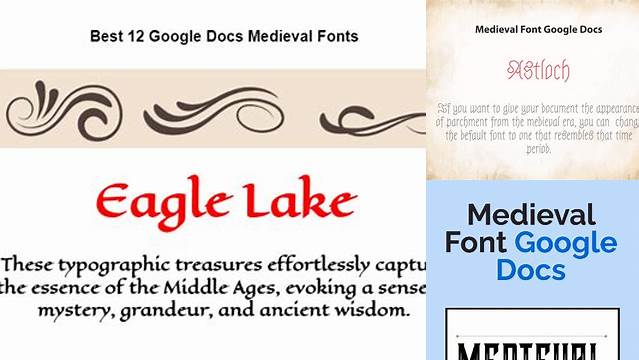
Unlock Medieval Fonts In Google Docs
Hey guys, ever found yourselves dreaming of giving your Google Docs that epic, old-world vibe? Maybe you're writing a fantasy novel, crafting a D&D campaign, or just want to add a touch of historical flair to your documents. Well, you're in luck! Getting medieval fonts in Google Docs might seem a bit tricky at first, since Google Docs doesn't have a direct "upload custom font" button like some desktop apps. But fear not, adventurers! We're here to guide you through the mystical forest of typography to unearth those perfect medieval scripts. We'll explore how to access, use, and even creatively integrate fonts that scream 'knight in shining armor' or 'ancient parchment.' So, buckle up, because we're about to transform your plain old docs into something truly legendary. Let's dive in and unlock the secrets of medieval typography for your Google Docs projects!
Diving Deep into Medieval Fonts for Google Docs
When we talk about medieval fonts for Google Docs, we're not just talking about one style; it's a whole kingdom of possibilities! From the sturdy, imposing Blackletter scripts often associated with old German texts, to the more elegant, flowing uncials and half-uncials that graced ancient manuscripts, medieval typography is incredibly diverse. Guys, understanding this variety is the first step to choosing the perfect font for your project. Are you aiming for something that looks like it came straight from a monastic scriptorium? Or perhaps a more rugged, hand-drawn feel that evokes an ancient map? Each style carries its own historical weight and aesthetic, and picking the right one can dramatically enhance your document's atmosphere. For instance, a heavy Blackletter might be perfect for a dramatic title, while a lighter, more legible gothic script could work for body text in a fantasy saga. The challenge with medieval fonts for Google Docs is often finding high-quality, free, and accessible versions that play nicely with Google's ecosystem. Many fantastic historical fonts exist, but not all are readily available within Google Fonts, which is Google Docs' primary font library. This means we sometimes have to get a little creative and think outside the box to bring those ancient vibes to life. We'll explore various methods, from utilizing existing Google Fonts that have a medieval feel to exploring add-ons and clever workarounds. The goal is to equip you with the knowledge to make your documents look like they’ve traveled through time, without needing to become a typography wizard yourself. It’s all about making your creative visions a reality, easily and effectively, right within your favorite cloud-based word processor.
The Quest for Authentic Medieval Google Docs Fonts
The quest for authentic medieval Google Docs fonts is a noble one, and it often begins by exploring Google's own extensive font library. While Google Fonts might not have categories explicitly named "Medieval" or "Gothic," they do offer a surprising number of typefaces that capture the essence of various historical periods. Guys, you'd be amazed at what you can find if you know what to look for! Think about fonts with strong serifs, dramatic flourishes, or a hand-drawn, almost calligraphic quality. Some great starting points include Old English Text MT (though not directly in Google Fonts, similar styles are), UnifrakturMaguntia, or Special Elite for a more typewriter-esque, historical feel. These aren't always 100% historically accurate Blackletter or Uncial scripts, but they certainly evoke that medieval era. The key is to experiment. Open up a blank Google Doc, head over to the font selector, and start browsing. Look for categories like "Display" or "Handwriting" as they often contain unique styles that lean towards the ornate or historical. Sometimes, a font that wasn't designed with the medieval period in mind can, with the right formatting (like bolding or increased letter spacing), perfectly capture the mood. Don't limit yourselves to just exact replicas; sometimes a stylistic echo is even more effective for readability and overall aesthetic. Remember, the goal is to transport your reader, and often, a well-chosen, readable font with a medieval flavor is better than an overly ornate, hard-to-read historical script. This quest is all about balancing authenticity with practicality, ensuring your readers can actually enjoy the content you’ve worked so hard on. Keep an eye out for unique character sets and ligatures, as these can add an extra layer of historical charm to your text, making it feel truly special and carefully crafted. It's a fun journey of discovery, honestly!
Exploring the Best Gothic Fonts for Google Docs
When people mention Gothic fonts for Google Docs, they're often referring to the Blackletter style, which is arguably the most recognizable "medieval" script. These fonts are characterized by their dense, angular, and often ornate letterforms, reminiscent of old German bibles or medieval proclamations. Guys, they really pack a punch visually! While direct Blackletter options within Google Fonts are limited, some excellent alternatives and creative approaches can help you achieve that desired aesthetic. Look for fonts like UnifrakturMaguntia, which offers a very close approximation of the Fraktur style of Blackletter. It has that distinctive, dramatic flair that instantly transports your reader to the Middle Ages. Another good strategy is to search for fonts with strong, heavy strokes and sharp angles, even if they aren't explicitly labeled "Gothic." Sometimes, display fonts with a hand-drawn or slightly distressed look can also evoke a similar ancient, historical vibe. The key with Gothic fonts for Google Docs is to use them wisely. Because of their intricate nature, they can be challenging to read in large blocks of text. They are best reserved for titles, headings, chapter beginnings, or short, impactful quotes. Imagine using a beautiful Blackletter for the title of your fantasy map or the opening line of a decree – it instantly elevates the document's presentation. Experiment with font size and line spacing to maximize readability while maintaining the dramatic effect. You can also pair a bold Gothic heading with a more legible, traditional serif font for the body text to create a striking contrast. This combination ensures your document is both visually stunning and user-friendly. Don't be afraid to play around with different Google Font options, as some unexpected finds might surprise you with their gothic potential. It’s all about visual storytelling!
Unleashing Old English Calligraphy in Google Docs
For those who love the intricate beauty of handwritten scrolls, unleashing Old English calligraphy in Google Docs can be a game-changer. "Old English calligraphy" often refers to various historical scripts, including uncials, half-uncials, and specific forms of Blackletter that emphasize elegant strokes and detailed letterforms. These aren't your typical, everyday fonts; they're art. While Google Docs doesn't natively support true calligraphic brush strokes, you can find fonts that mimic the aesthetic of historical handwriting. Guys, the secret is to search for fonts in the "Handwriting" or "Display" categories within Google Fonts that have a calligraphic or script-like quality. Look for fonts with noticeable variations in stroke width, delicate flourishes, or a slightly irregular, hand-drawn appearance. Fonts that suggest the use of a broad-nib pen, even if they are digitized, can give you that sought-after Old English feel. Remember, direct historical script replicas are rare in Google Fonts, but you can achieve a convincing imitation. For example, fonts like IM Fell Double Pica or Cormorant Garamond (while not strictly Old English) have a classic, somewhat ornate feel that can be dressed up to look more ancient. If you need true calligraphy, the image insertion method discussed earlier is your best friend. Write your text in a dedicated calligraphy app or a graphic design program using a specialized Old English font, then export it as an image and place it in your doc. This allows for genuine, highly detailed calligraphic artistry for those special touches. Unleashing Old English calligraphy in Google Docs is about adding a layer of sophisticated historical elegance that elevates your document from functional to truly artistic, making your work stand out like an ancient manuscript discovered in a forgotten library. It’s about the aesthetic impact, transforming text into visual poetry.
Using Custom Fonts in Google Docs Effectively
Okay, so you've learned about using images for custom fonts in Google Docs. Now let's talk about using them effectively. It’s not just about slapping a cool font on your page; it's about thoughtful design. For starters, less is often more. While a dramatic medieval font is awesome for a title, using it for every paragraph will make your document incredibly hard to read and visually overwhelming. So, think strategic placement, guys. Use your custom medieval font for your main title, chapter headings, section breaks, or maybe for a prominent quote or epigraph. For the body text, stick to a highly legible serif font like Merriweather or Cormorant Garamond from Google Fonts. These fonts have a classic, almost old-world feel themselves, but without sacrificing readability. This creates a beautiful contrast: the eye-catching custom font draws attention to key elements, while the readable body font ensures smooth information flow. Also, consider the size and color of your custom font image. Make sure it's large enough to be clearly legible and that its color contrasts well with your document's background. Dark text on a light background (or vice-versa) is always best. When embedding images, remember they don't flow like text, so you'll need to use Google Docs' image positioning options (e.g., "Wrap text" or "Behind text") to integrate them smoothly. Using custom fonts in Google Docs effectively means seeing them as decorative elements rather than pure text. They are like illustrations that enhance your narrative, not the narrative itself. Master this, and your medieval documents will look professional and authentic!
Google Docs Medieval Font Styles: A Deep Dive
Let's really dig into Google Docs medieval font styles and break down what works and what to look for. Beyond direct Blackletter, there are several nuances. Think about the feel you're going for. Do you want something imposing and grand, like Fraktur or Textura? Or perhaps something more flowing and manuscript-like, akin to Uncial or Caroline Minuscule? While direct matches are rare in Google Fonts, you can find strong inspirations. For grand titles, look at Google Fonts' Display category for heavy, ornate serifs like Metamorphous or Almendra Display. These have a fantastical, almost ancient feel. For body text that needs a subtle medieval touch, consider fonts that mimic classic printing, like IM Fell English, Cormorant Garamond, or Lora. These fonts have excellent readability but carry a historical weight with their classic serif structures and often slightly irregular letterforms. Guys, don't forget the power of kerning (letter spacing) and line height. Slightly increasing letter spacing for a display font can make it feel more deliberate and ancient, mimicking the careful spacing of early printed books. Similarly, adjusting line height can affect the overall density and readability of your text. Google Docs medieval font styles are not just about choosing a font; it's about manipulating its properties to evoke the desired era. Experiment with bolding, italics, and even light shading effects on your custom font images to give them more depth. The goal is to build an atmosphere with your typography, not just present information. It’s a creative process, so have fun with it and see what combinations truly transport your readers.
Old English Fonts in Google Docs: Practical Tips
Crafting medieval themed Google Docs requires careful aesthetic choices that extend beyond just the font. It's about creating a holistic visual experience that immerses your reader. Firstly, consider your color palette. Muted tones like sepia, charcoal, deep forest green, and burgundy can evoke an ancient, earthy feel. Use these for text highlights or subtle accent colors, but generally stick to dark text on a light background for readability. Guys, avoid bright, modern colors! Secondly, imagery plays a huge role. Incorporate medieval-themed clip art, illuminated manuscript details, or stylized historical illustrations. These visual elements act as anchors, reinforcing your chosen theme. Make sure images are high resolution to avoid pixelation. Thirdly, think about layout and spacing. Medieval manuscripts often had generous margins and structured blocks of text. Emulate this with your paragraph spacing and overall document margins. Sometimes, a wider margin can make a document feel more substantial and formal, akin to an old book. Finally, texture can be subtly implied. While you can't truly texture a Google Docs page, you can use very faint, light background images (e.g., of parchment or aged paper) placed behind your text. Medieval themed Google Docs are a feast for the eyes, designed to transport the reader to another time through every visual cue. It’s about creating a consistent, captivating aesthetic that complements your content and makes your document a work of art.
Google Docs Font Library: Expanding Your Options